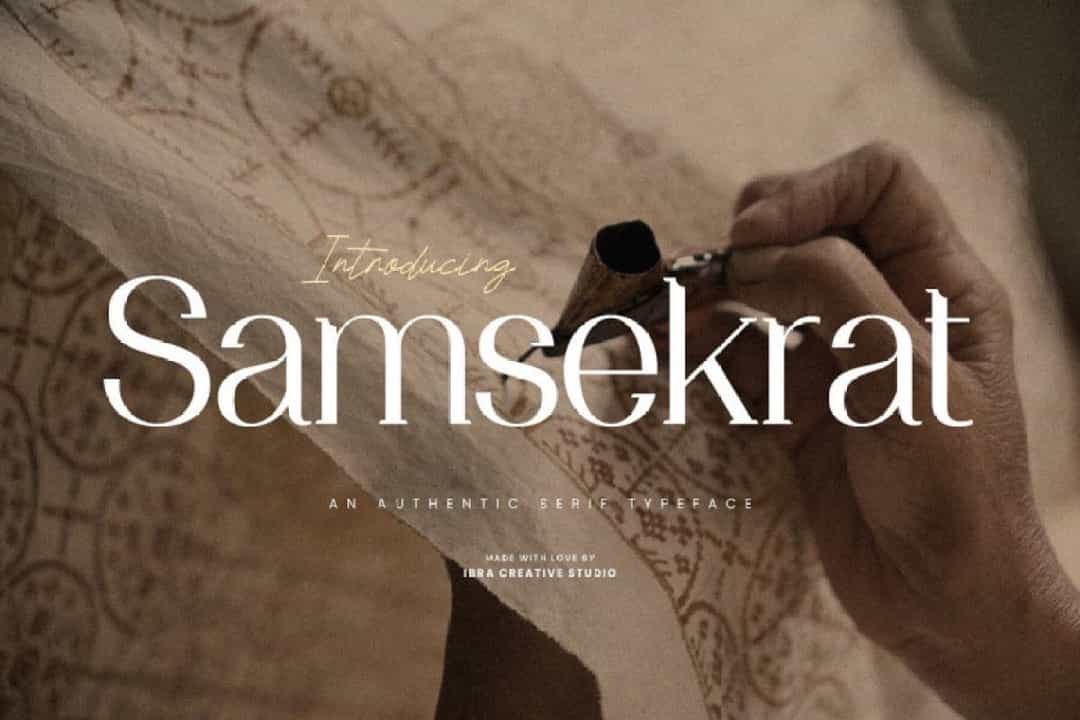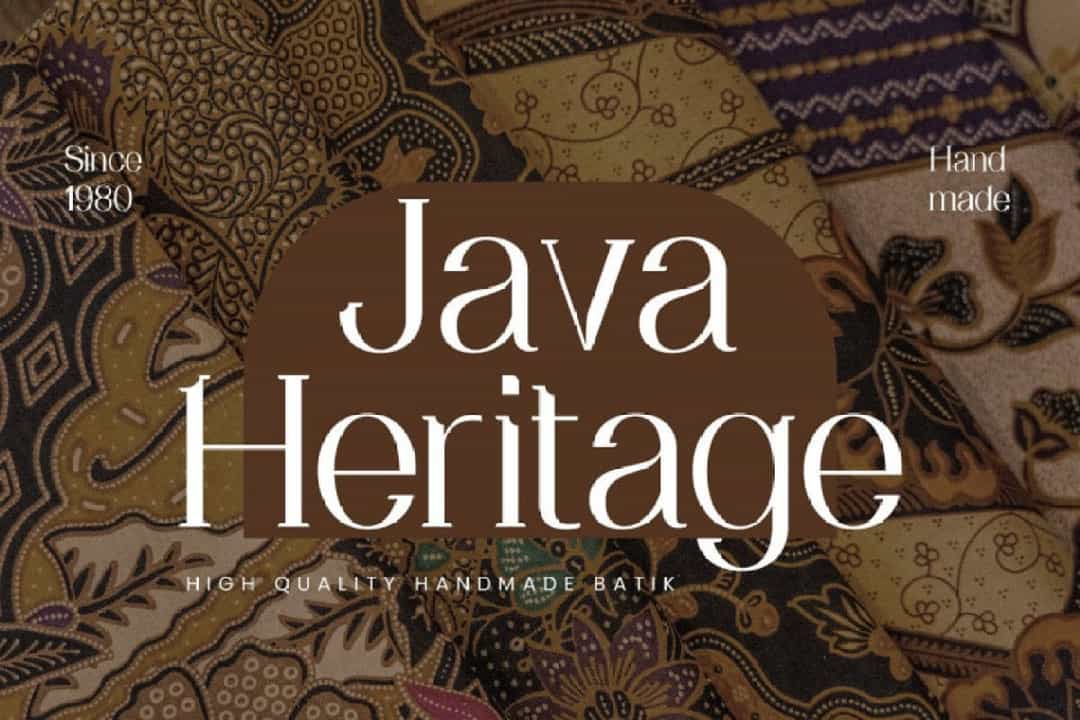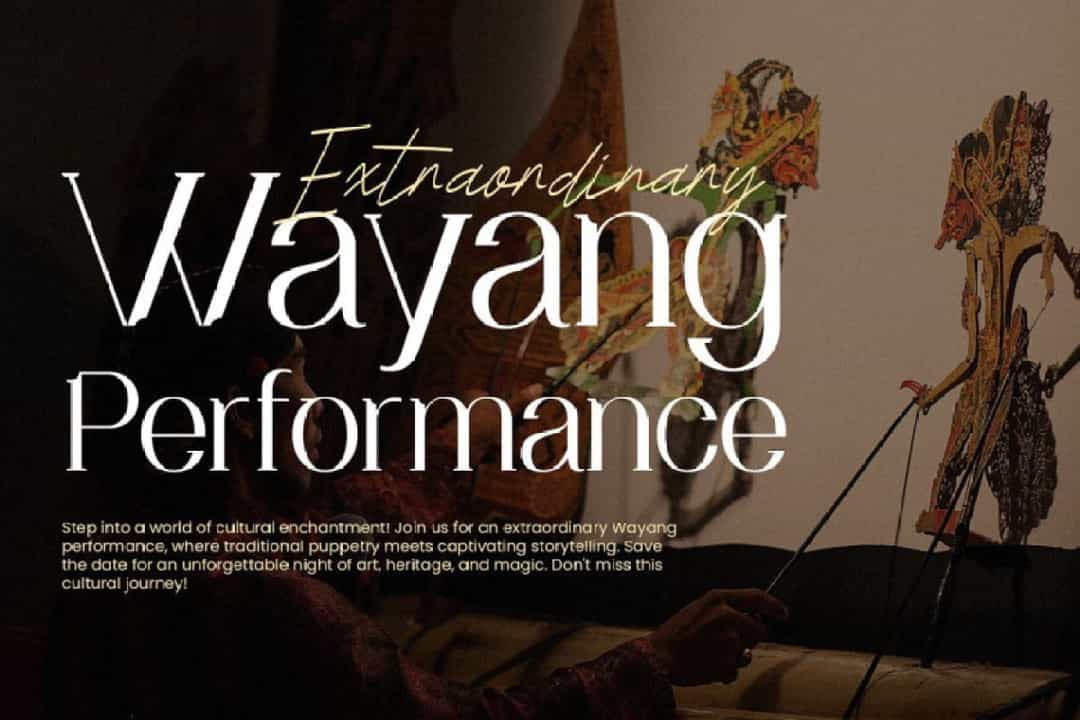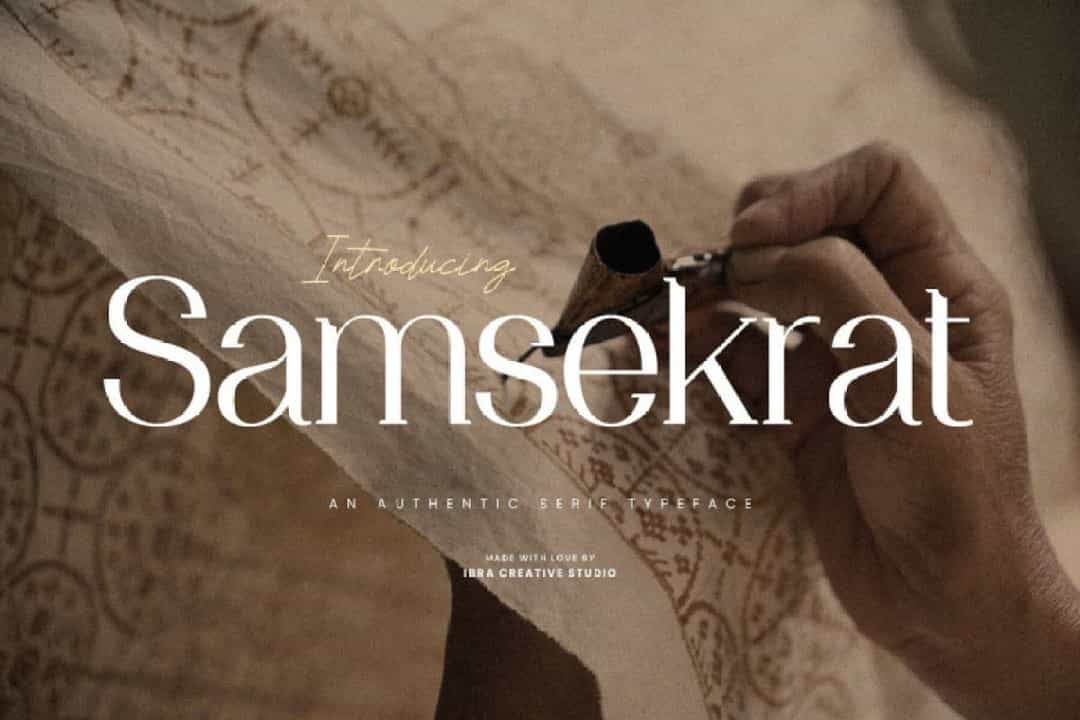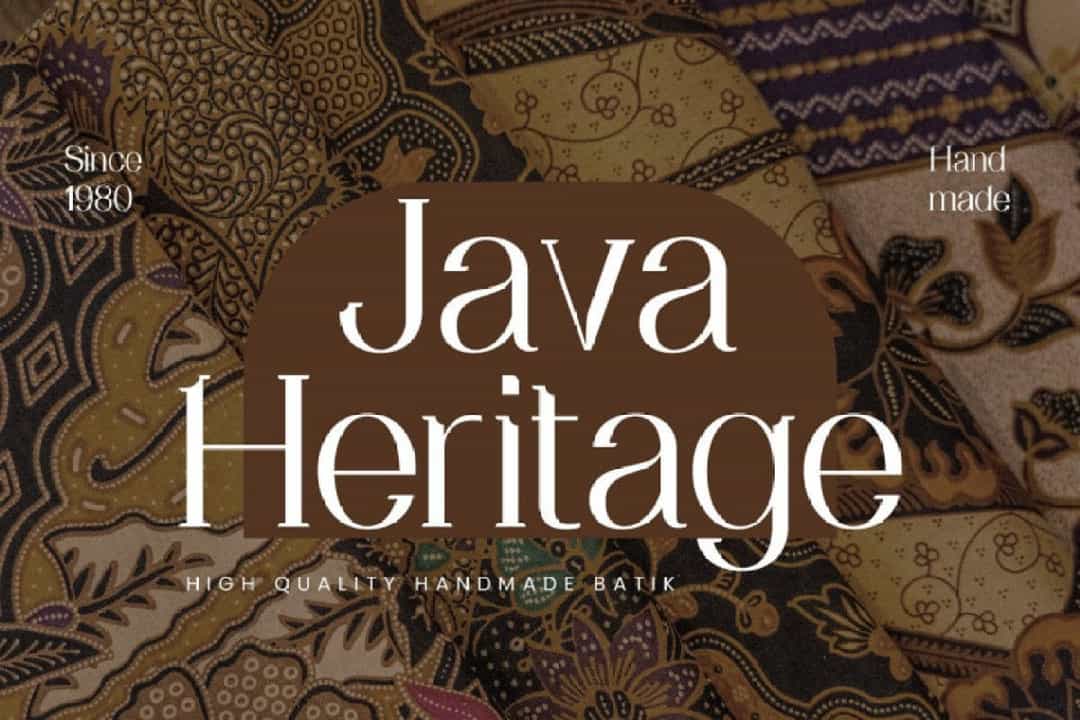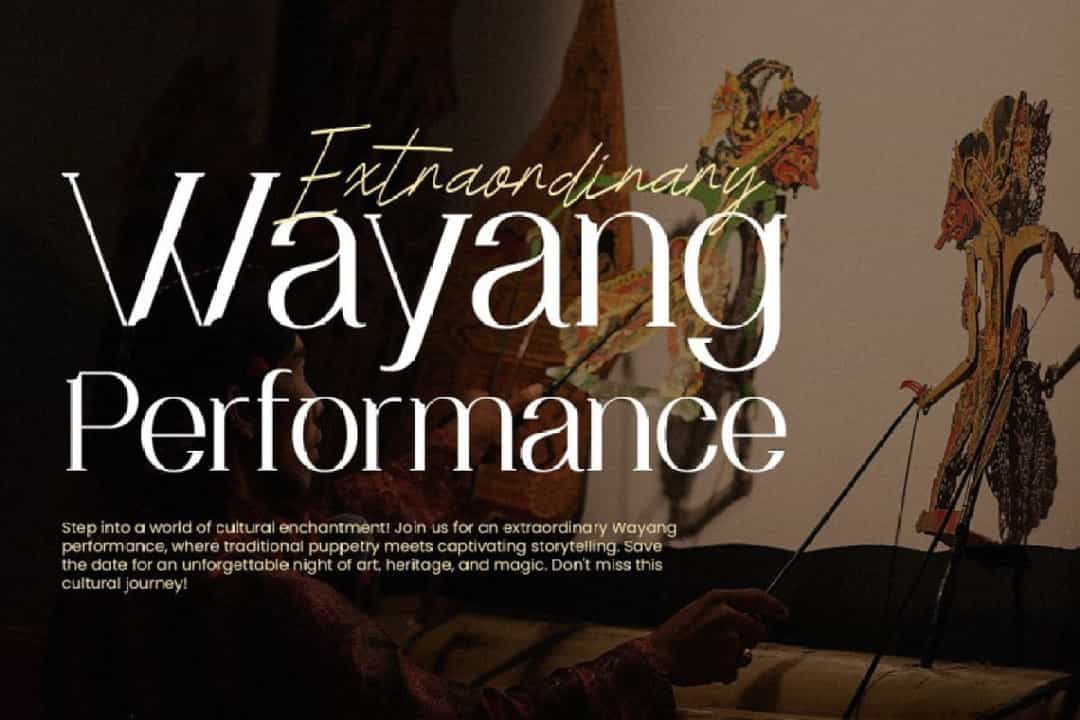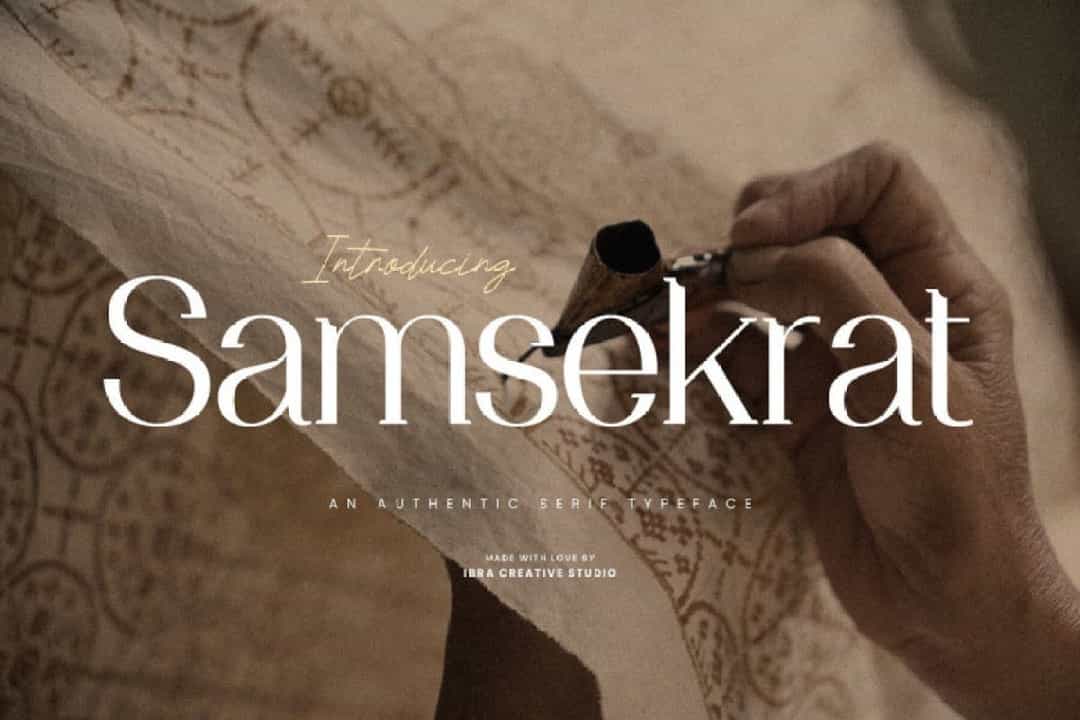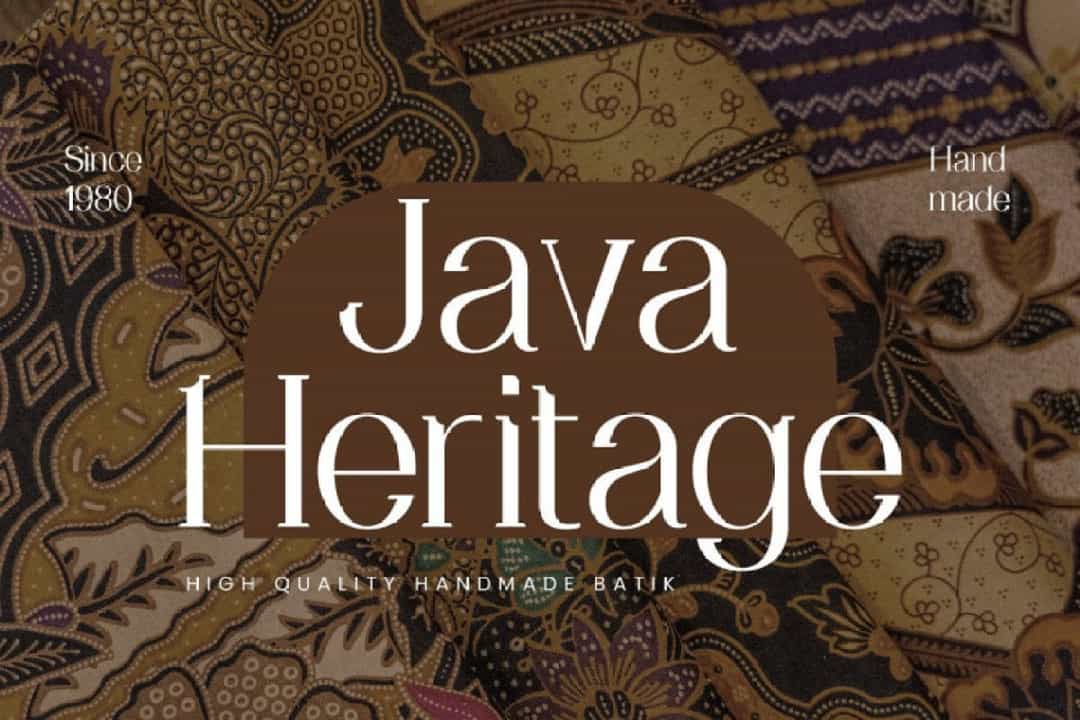
Samsekrat is a classic serif typeface with timeless elegance and sophistication. Boasting exquisitely designed letters, Samsekrat strikes an appealing balance between modernity and tradition – perfect for use across various design projects.